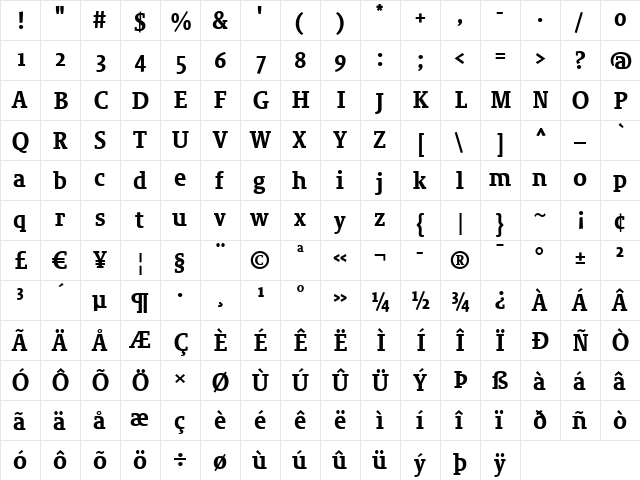
Sheriff Web-Bold Regular
| Designer | Peter Verheul |
Design Context for Sheriff Web-Bold Typeface
Sheriff Web-Bold is a composed and adaptable typeface that performs quietly and consistently across a wide range of design contexts. The heavy weight commands attention and anchors typographic hierarchies.